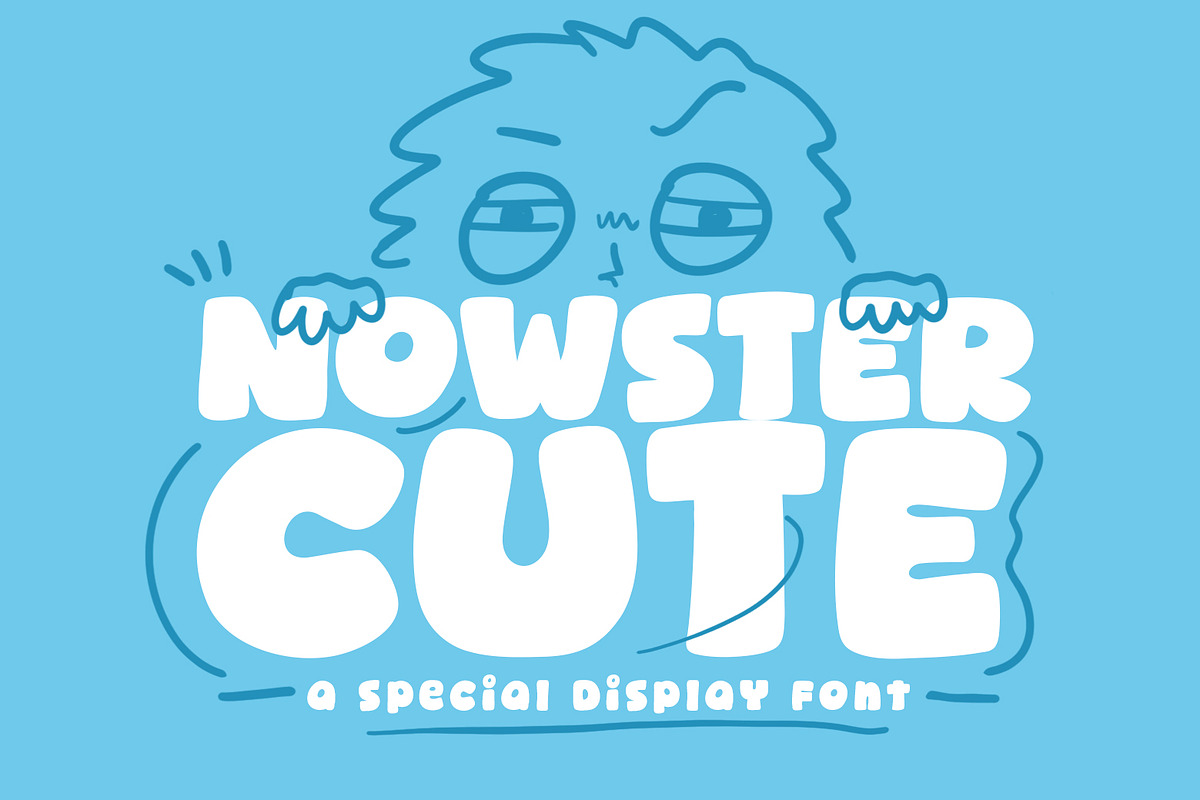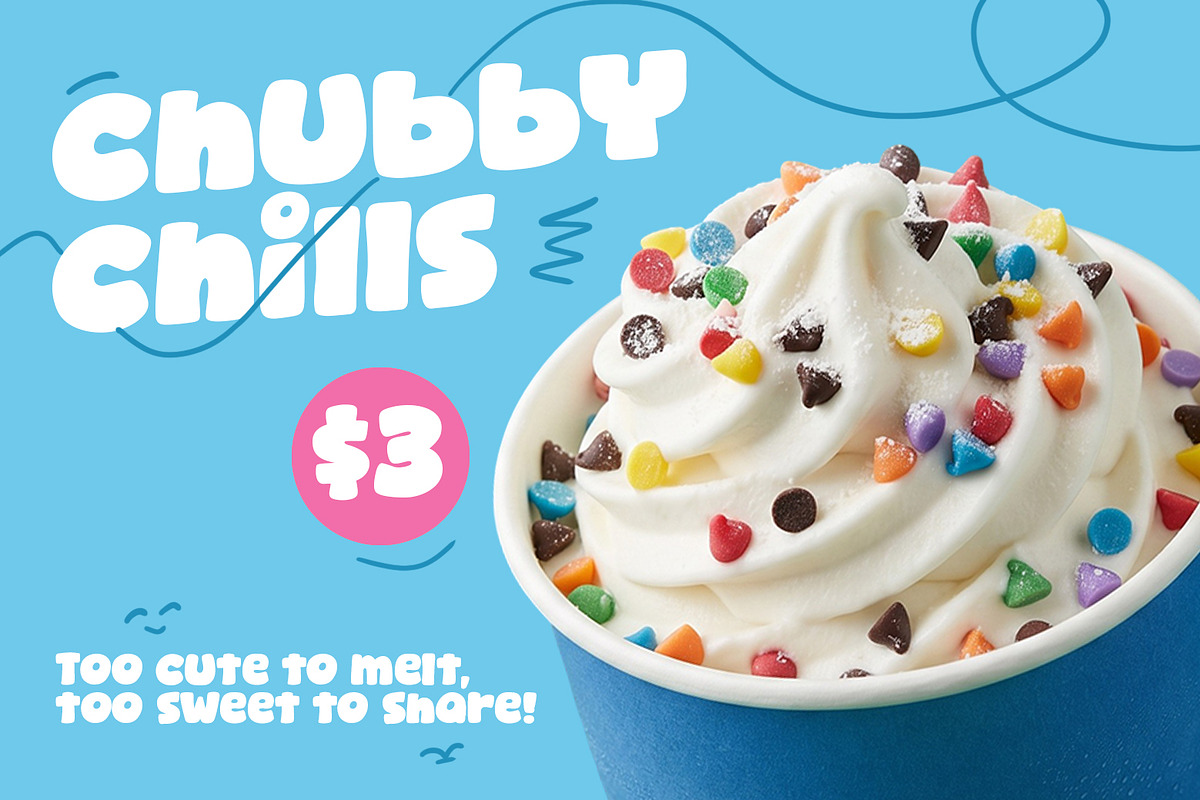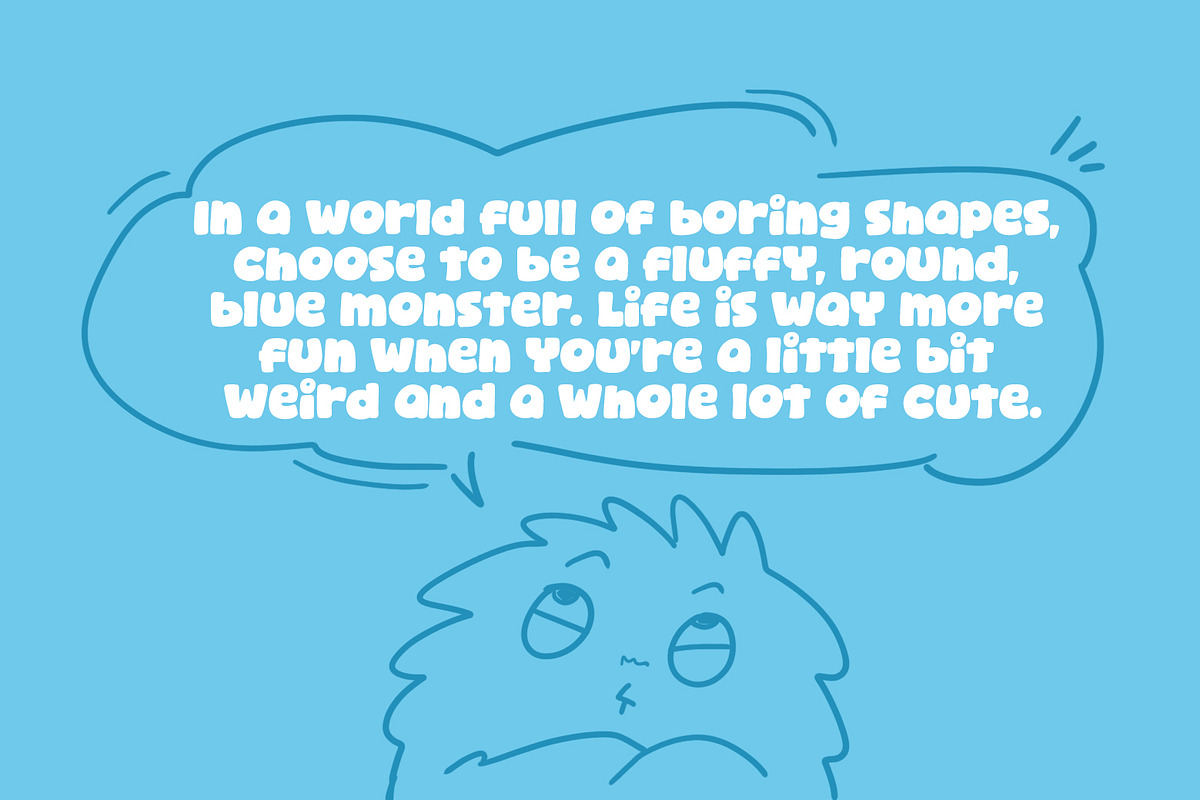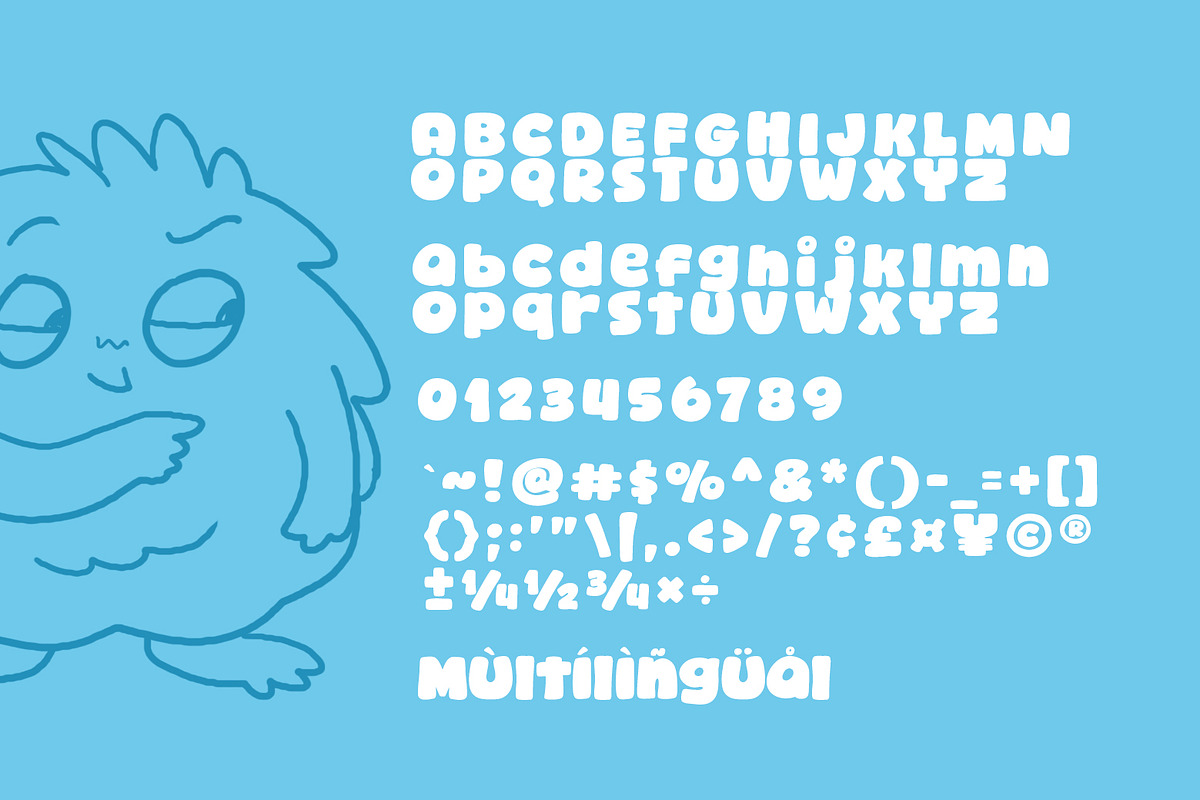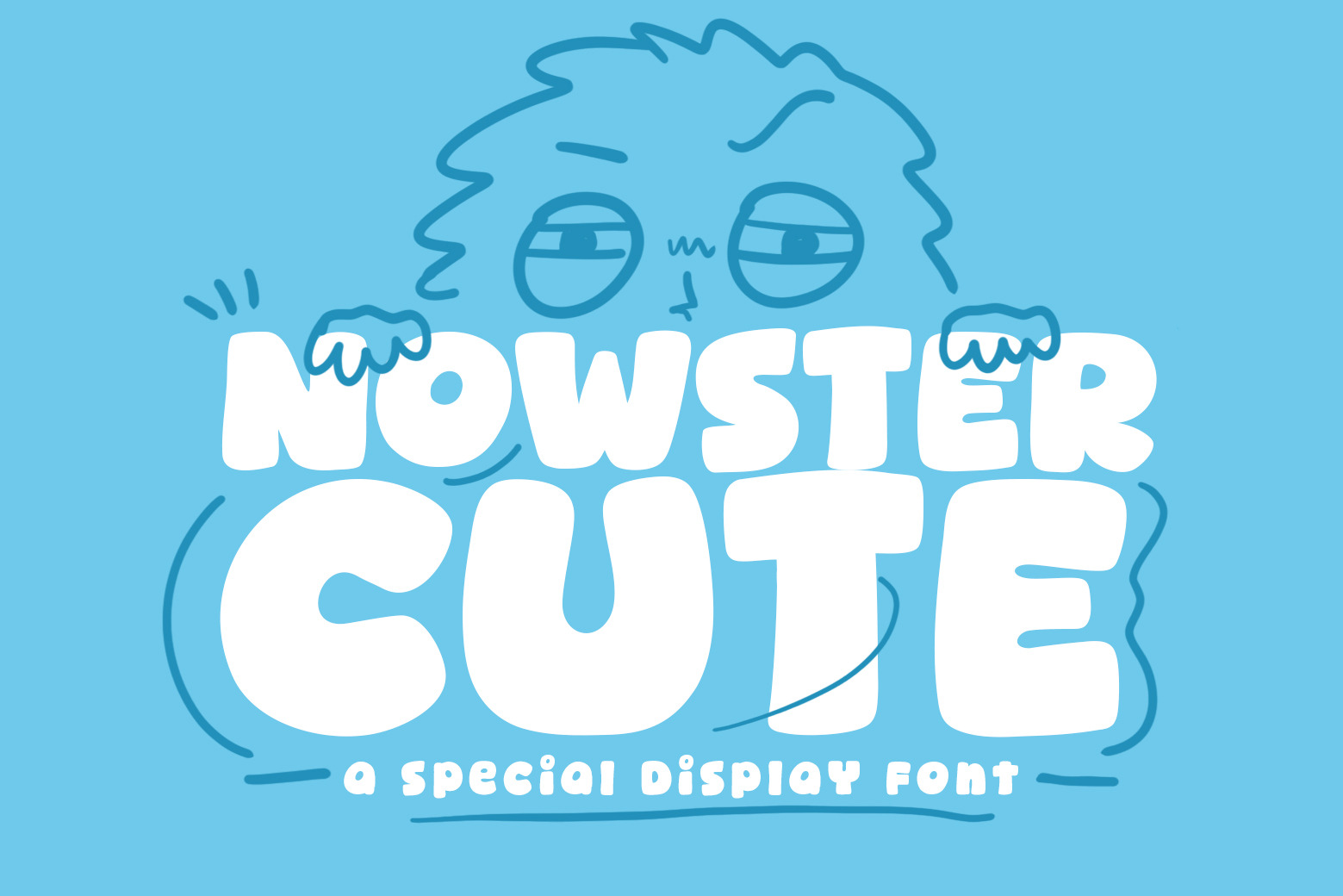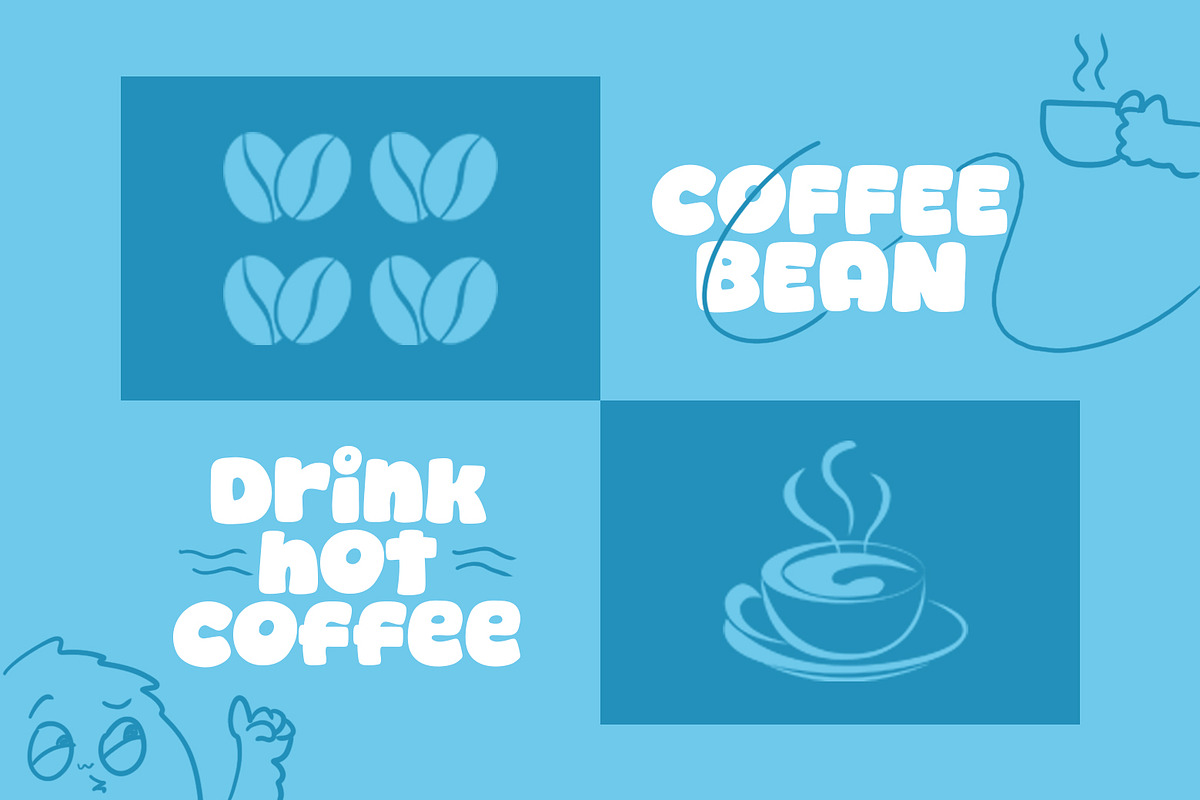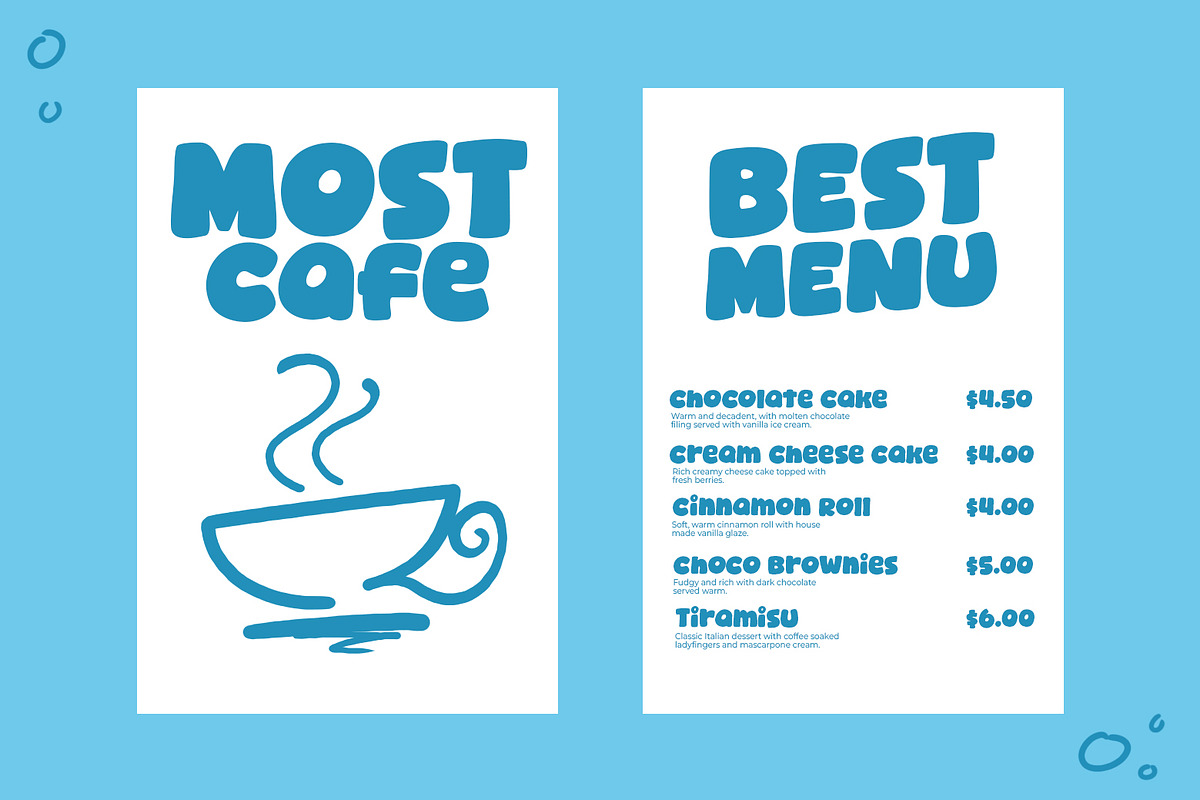
Nowster Cute - Cozy & Display Font
Introducing, Nowster Cute font a fun display typeface with cheerful theme for your fun project. Nowster Cute font suitable for logo, branding, greeting card, poster and any design that you create.
Standart Glyphs
Numberial and Functional